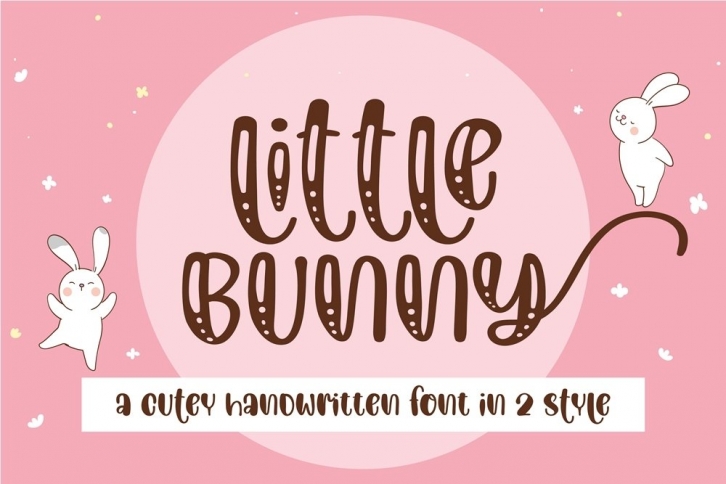
Little bunny-A cutey swashes handwritten is a great font that was designed by RungNoiStudio. Imagine the amount of combinations you can create using this font! The archive is 9.59 MB and it was released on January 21, 2021. Little bunny-A cutey swashes handwritten looks beautiful on wedding invitations, greeting cards, logos, posters, labels, t-shirt designs, logos, business cards and is perfect for use in ink or watercolor works, fashion, magazines, packaging and food menus, children's books and more!